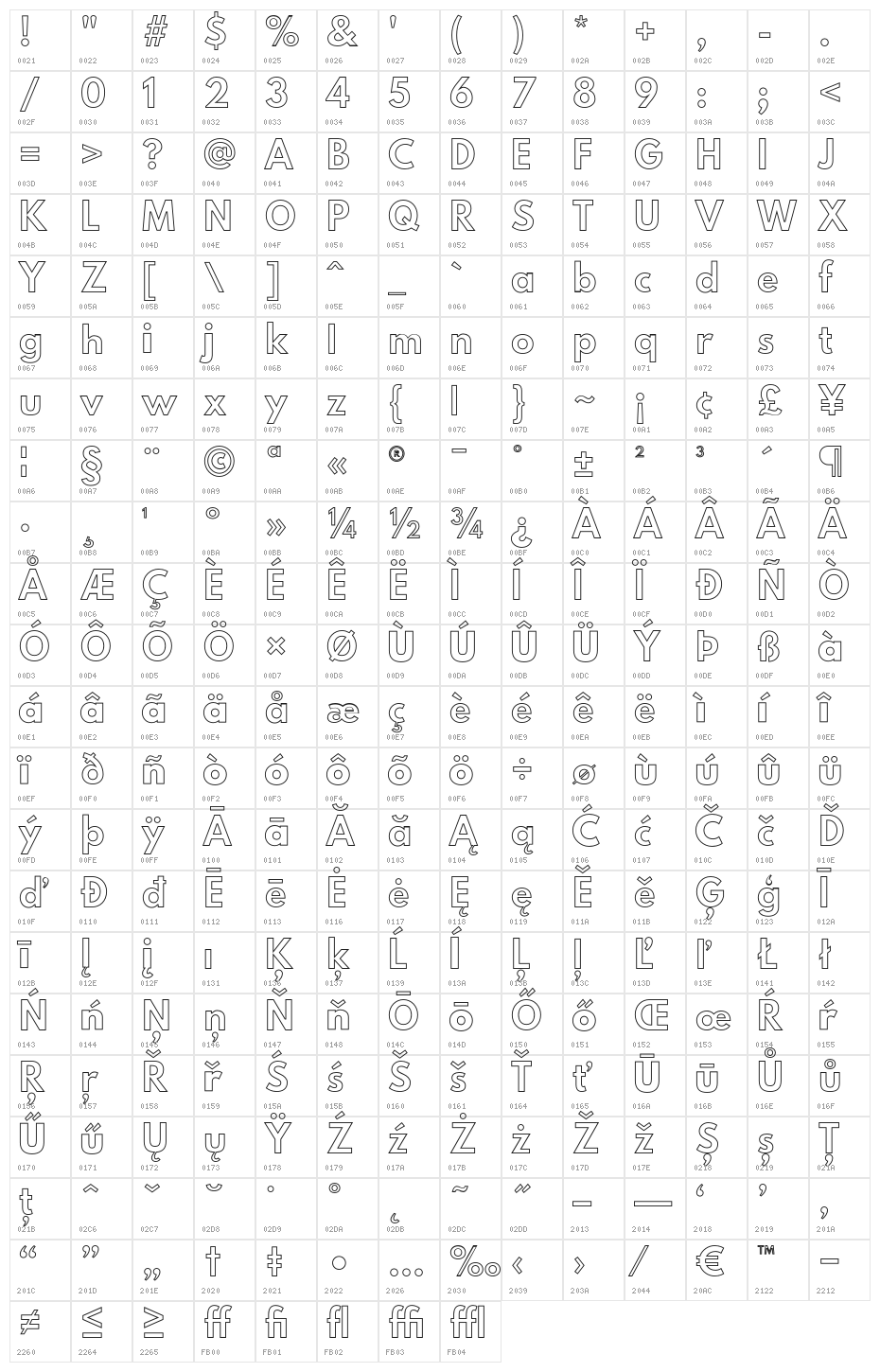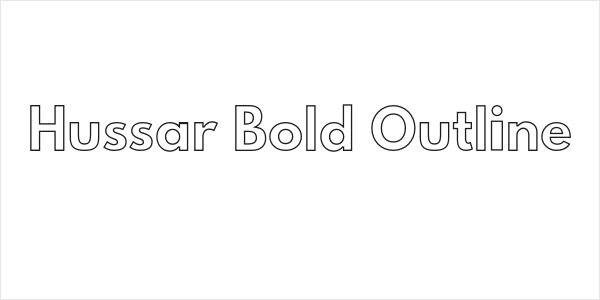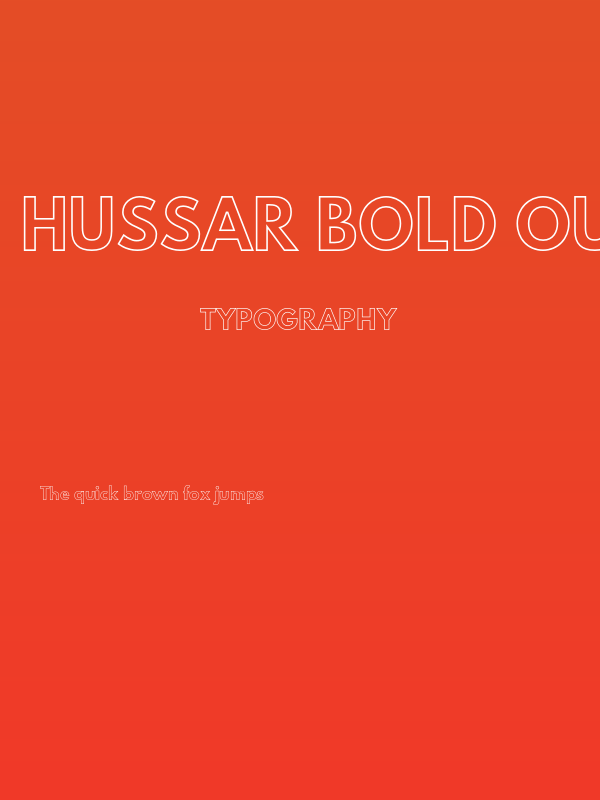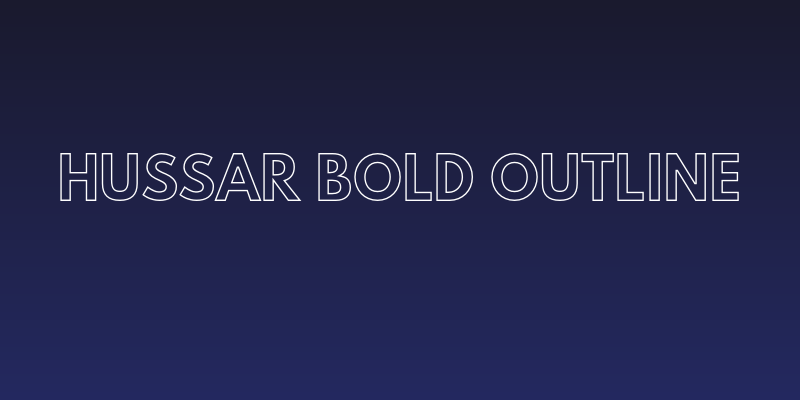
Hussar Bold Outline Font
Hussar Bold Outline Description
This font features a bold outline style that gives it a striking and modern appearance. The characters are sans-serif, providing a clean and contemporary look. Each letter and number is defined by a consistent, thick outline, creating a hollow effect that is both eye-catching and versatile. The uppercase and lowercase letters maintain uniformity in style, with rounded edges that add a touch of softness to the overall design. The numerals and special characters are equally well-crafted, ensuring readability and aesthetic appeal. This font is perfect for projects that require a bold statement without overwhelming the viewer.
| Proposed Projects | Ideal for headlines, posters, logos, and branding materials where a bold and modern look is desired. |